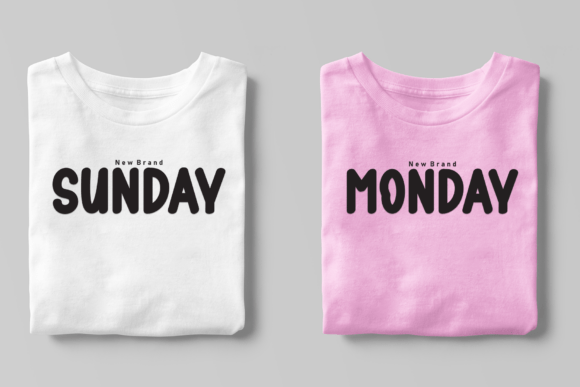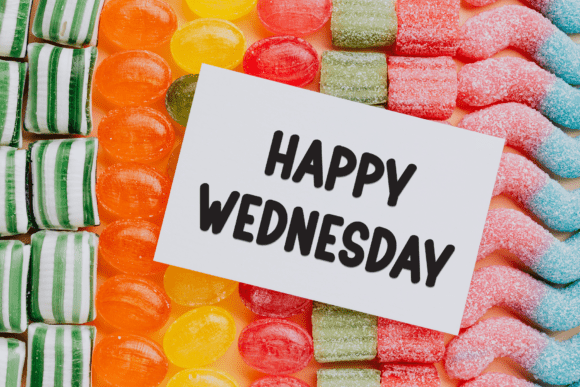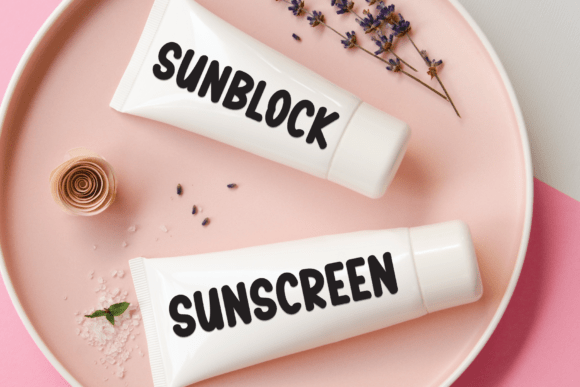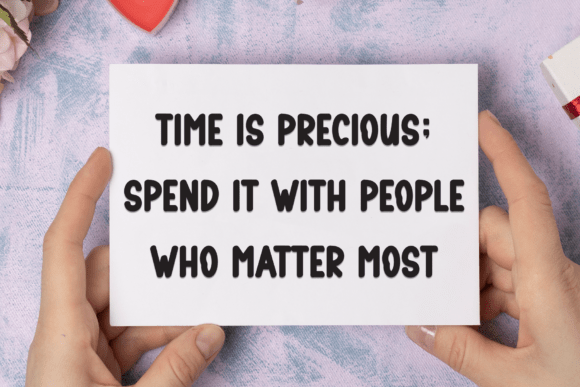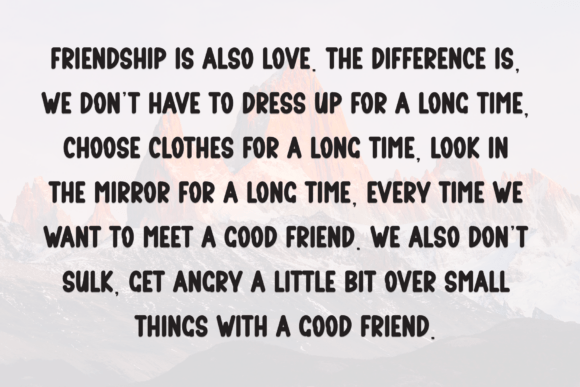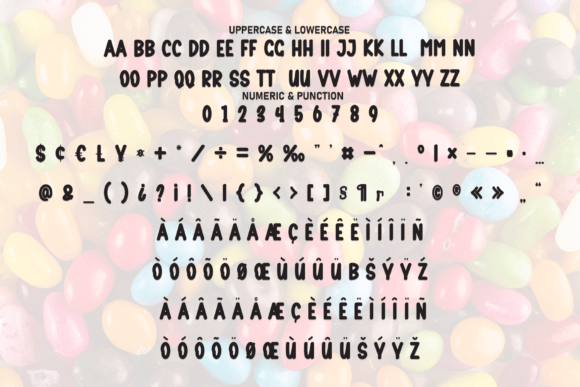
Candy Rainbow Font: Adding a Dash of Sweetness to Your Designs
Are you looking for a font that can add a touch of warmth and liveliness to your design canvas? Look no further than the Candy Rainbow Font! This charming handwritten font is bursting with sweetness and is perfect for designers and crafters who want to create playful and joyful designs.
Handwritten fonts have always been a popular choice among designers, and for good reason. They add a personal touch to any design, making it feel more approachable and friendly. The Candy Rainbow Font is no exception. With its whimsical and playful vibe, it’s sure to capture the attention of your audience and leave a lasting impression.
Perfect for Wedding Invitations and More
The Candy Rainbow Font is particularly well-suited for wedding invitations, heartfelt cards, and other designs that require a touch of elegance and sophistication. Its cute and joyful vibrance makes it perfect for crafting beautiful and memorable designs that will be treasured for years to come.
What Makes Candy Rainbow Font So Special?
So, what sets the Candy Rainbow Font apart from other fonts? Here are just a few reasons why it’s a standout:
- Unique and Playful Design: The Candy Rainbow Font has a one-of-a-kind design that’s sure to grab attention. Its playful and whimsical vibe makes it perfect for designers who want to add a touch of fun to their designs.
- Easy to Read: Despite its playful design, the Candy Rainbow Font is easy to read, making it perfect for body text and headlines.
- Versatile: The Candy Rainbow Font can be used for a wide range of design projects, from wedding invitations to social media graphics.
How to Use Candy Rainbow Font in Your Designs
Using the Candy Rainbow Font in your designs is easy! Here are a few tips to get you started:
- Pair it with Other Fonts: The Candy Rainbow Font pairs well with other fonts, such as sans-serif fonts like Arial or Helvetica. Experiment with different font combinations to find the perfect look for your design.
- Use it for Headlines and Titles: The Candy Rainbow Font is perfect for headlines and titles, where its playful and whimsical vibe can really shine.
- Add Color: The Candy Rainbow Font looks great in a variety of colors, so don’t be afraid to experiment and find the perfect hue for your design.
The Candy Rainbow Font offers a range of benefits for designers and crafters, including:
- Increased Creativity: The Candy Rainbow Font’s playful and whimsical design can help inspire your creativity and take your designs to the next level.